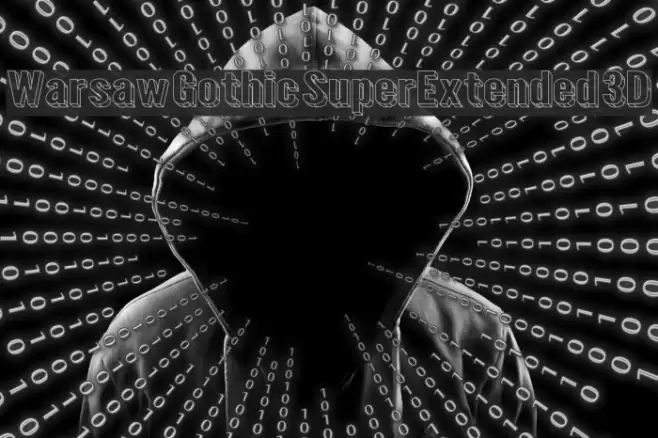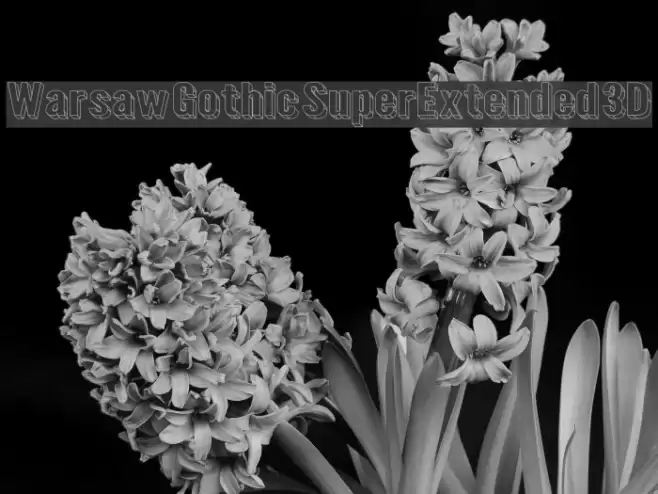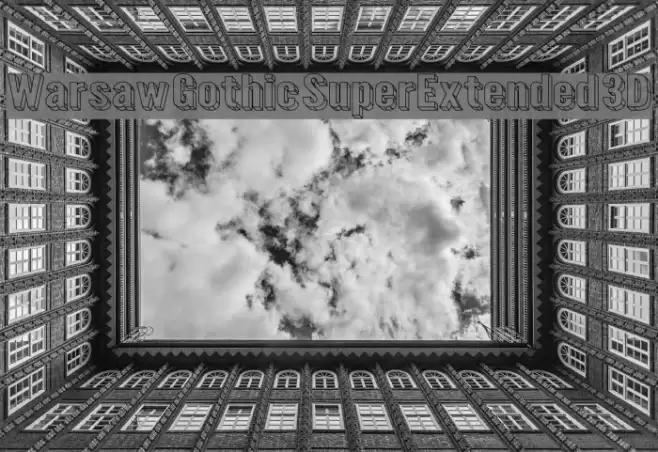
Warsaw Gothic SuperExtended 3D Font
Warsaw Gothic SuperExtended 3D Description
This font features a bold, three-dimensional design with a strong, impactful presence. The characters are outlined with a thick black line, creating a shadow effect that gives them a sense of depth and dimension. The uppercase and lowercase letters, as well as numbers and special characters, all share this distinctive 3D style. The font's structure is geometric and angular, with clean lines and sharp edges, making it highly legible and visually striking. Its extended width adds to its commanding appearance, making it ideal for attention-grabbing headlines or display purposes.
A bold, 3D geometric font with an extended width and strong visual impact from Uncategorized fonts.
- Proposed Projects: Ideal for posters, signage, logos, and any design project requiring a bold, eye-catching typeface.